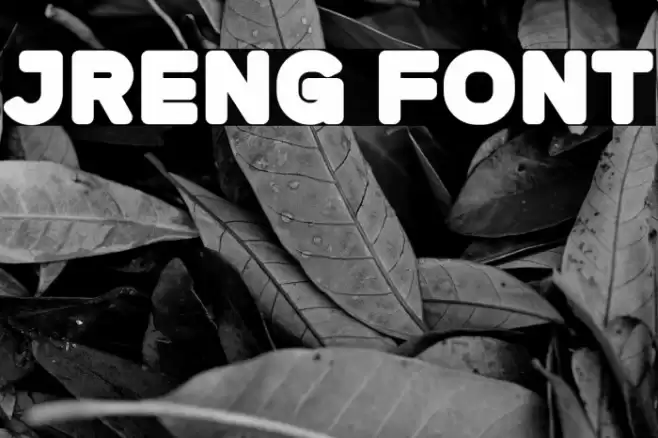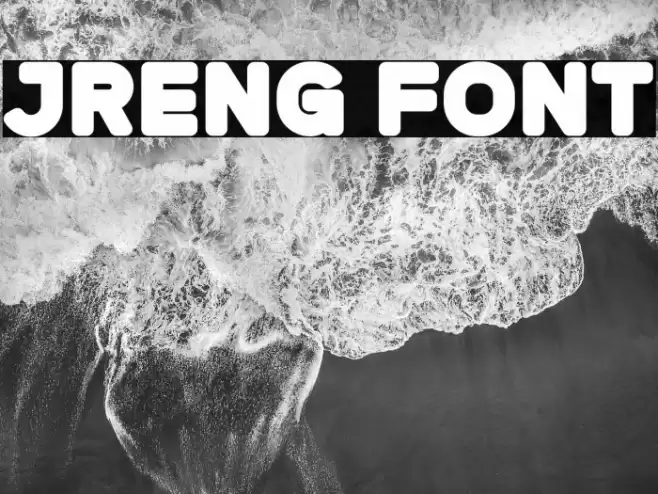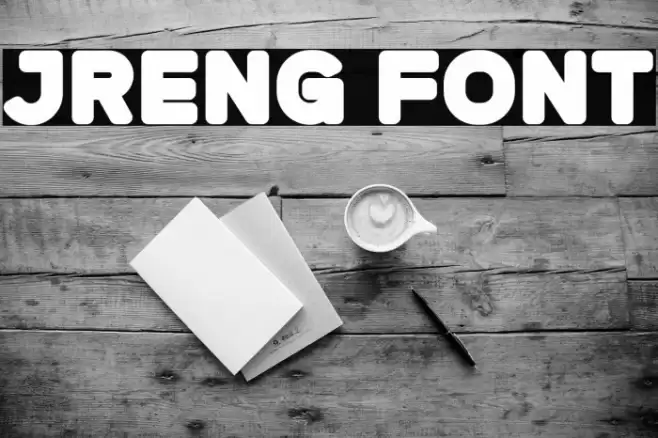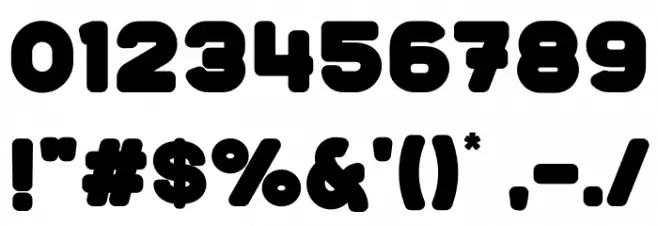
Jreng Font
Jreng Description
This font features bold, rounded characters with a strong, impactful presence. The letters are uniformly thick, creating a sense of stability and strength. The rounded edges soften the overall appearance, making it approachable and friendly. The characters are evenly spaced, ensuring readability while maintaining a cohesive look. The numbers and special characters follow the same design principles, offering a consistent style throughout. This font is ideal for projects that require a bold statement, combining modern aesthetics with a playful touch.
A bold, rounded font with a strong and friendly appearance from Uncategorized fonts.
- Proposed Projects: Ideal for branding, headlines, posters, and any design needing a bold, approachable look.